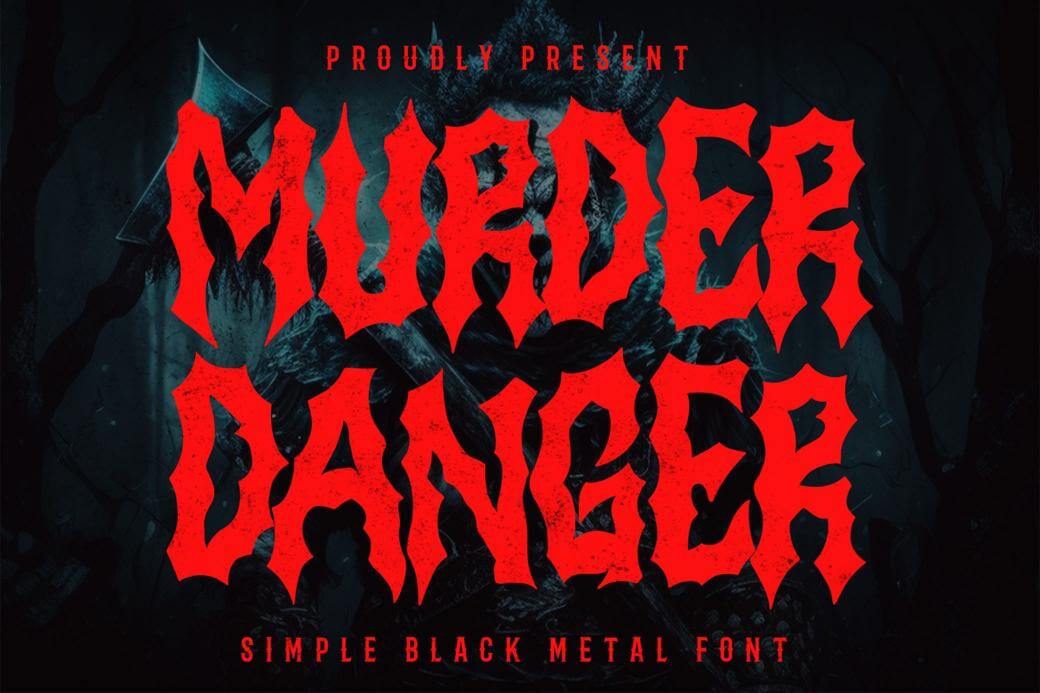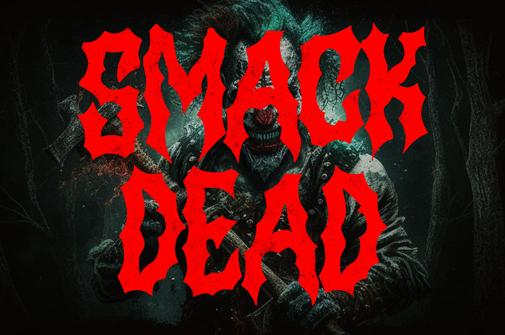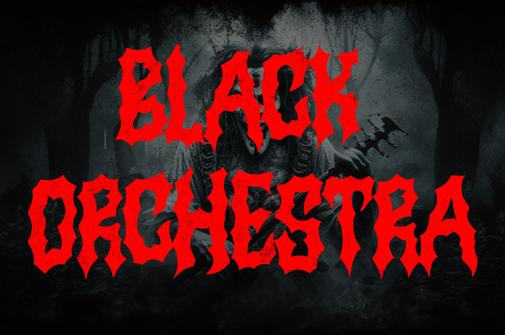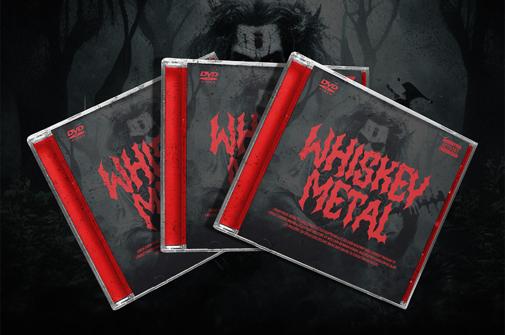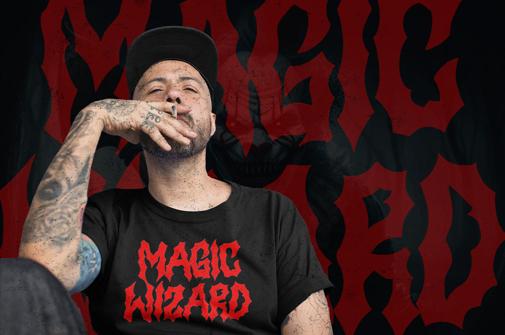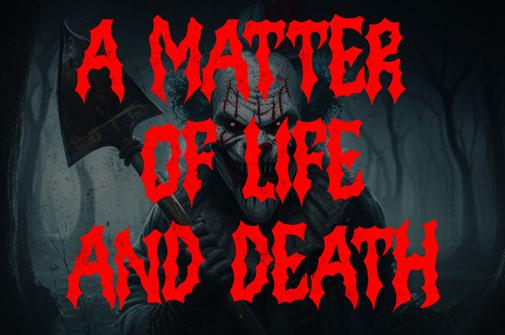
Murder Danger — Free Horror Font
Murder Danager — Horror Font
Today’s spotlight is on the “Murder Danager” a chilling and atmospheric horror font that transcends the boundaries of Halloween. Even though the spooky season has passed, the thrill of a good scare is timeless. Embrace the dark aesthetic with this free horror font, complete with a full set of letters, numbers, and punctuation. Whether you’re working on a sinister project or just want to add an edge to your designs, “Murder Danger” is your go-to typeface for creating an aura of suspense and danger. Download it today and unleash the horror in your typography.
• Author: pixelbuddha